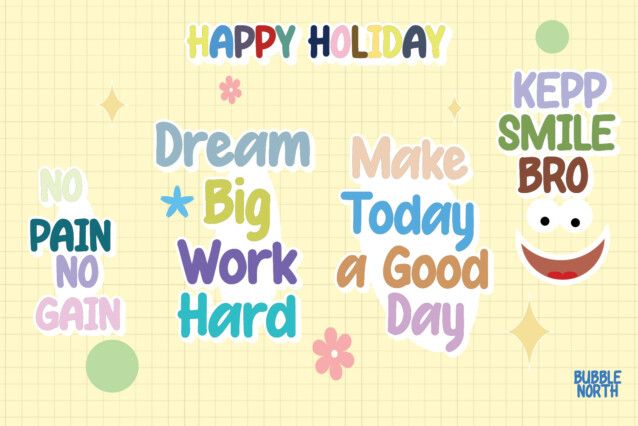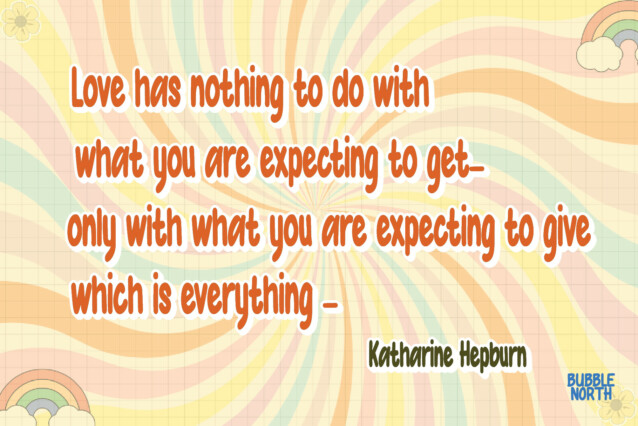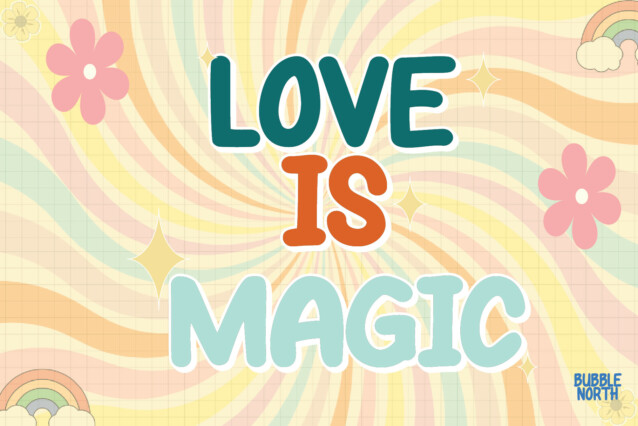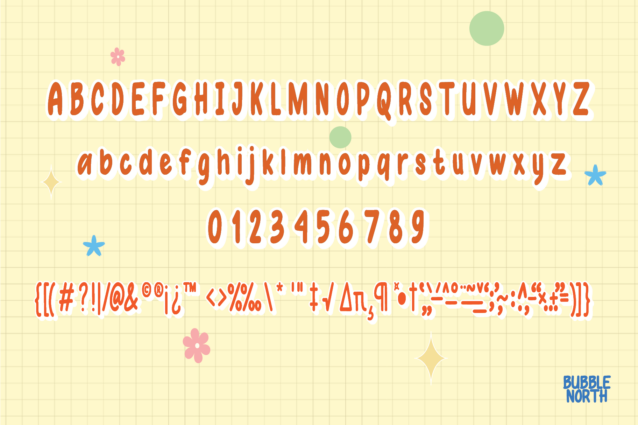
Bubblenort Display Font
Bubblenort Display Font is a cartoon sans serif font type, this font is the result of handwriting which is written with care so that it can be used by all designers, so that it looks natural and is suitable for the project you are working on. This font is actually suitable for you to use as designs for stickers, comics, films, flyers and so on. You should have this font for your collection and additional fonts on your device.